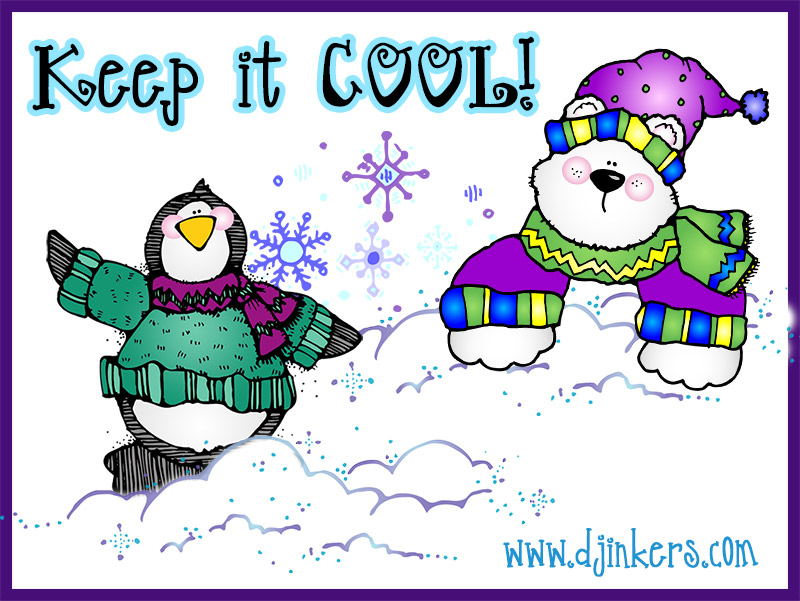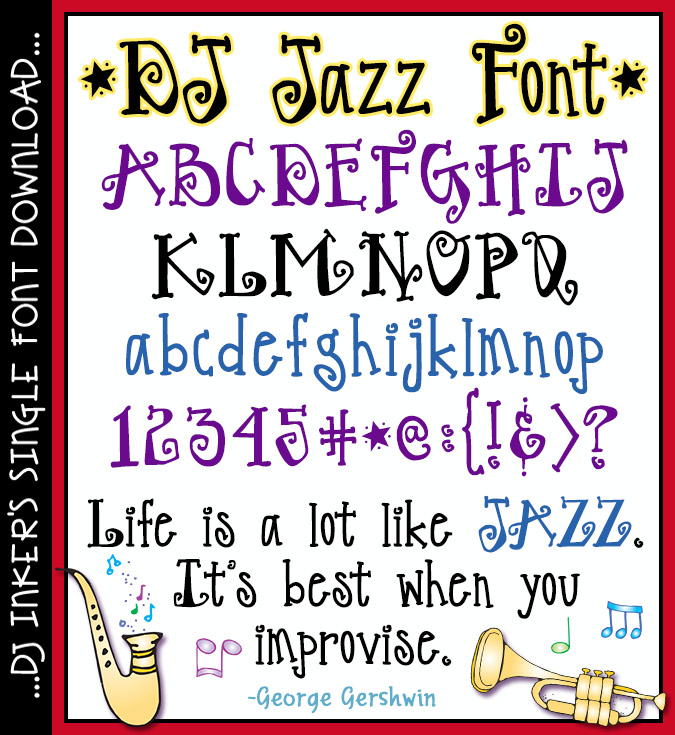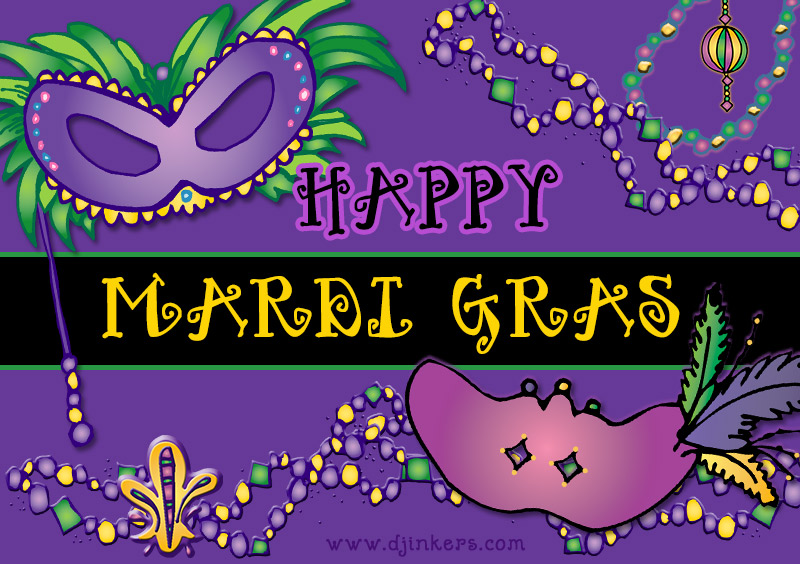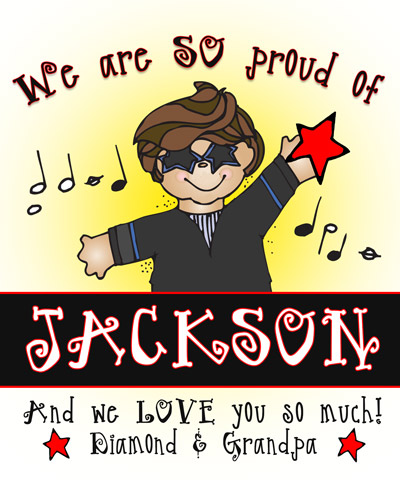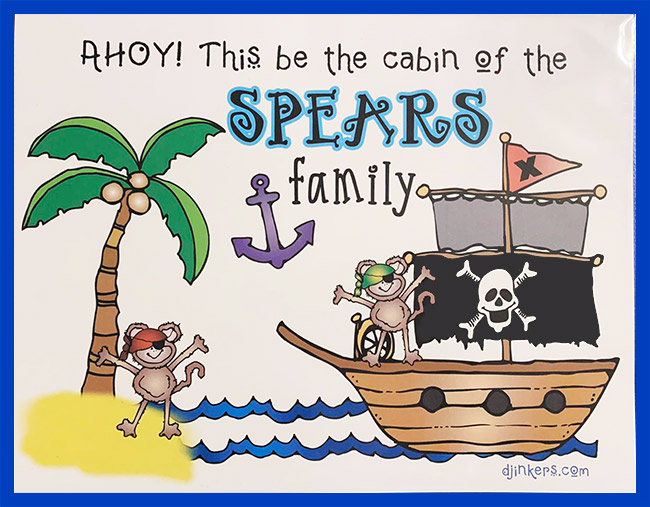
DJ Jazz Font Download
This bold DJ font will make your projects look lively, fun, sassy, cool...
and ALL that Jazz! Excellent for festive holiday parties, exciting
events and congratulations, decorations, banners and more.